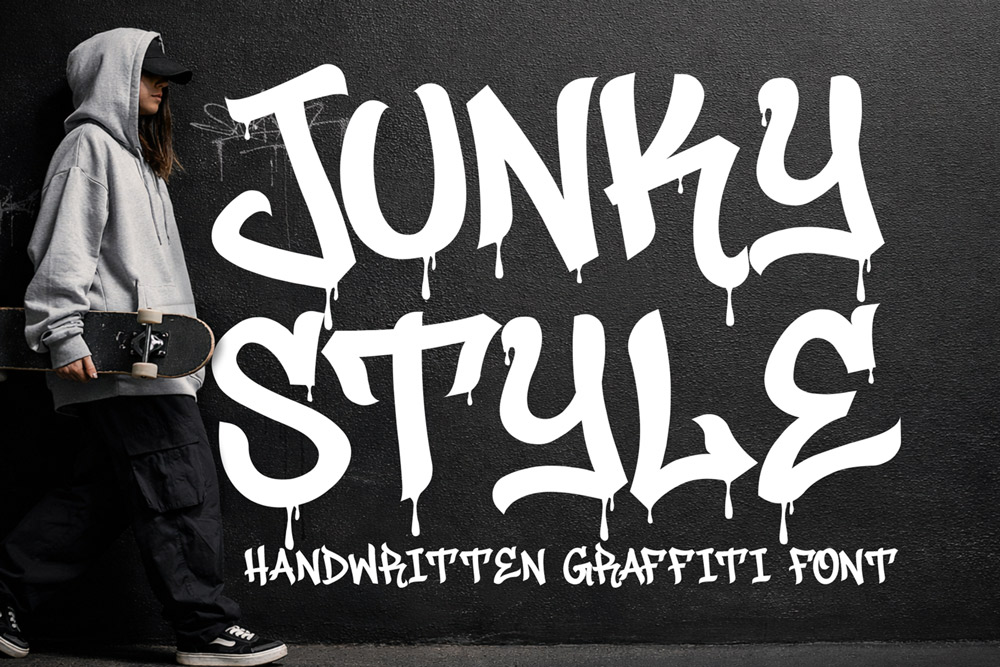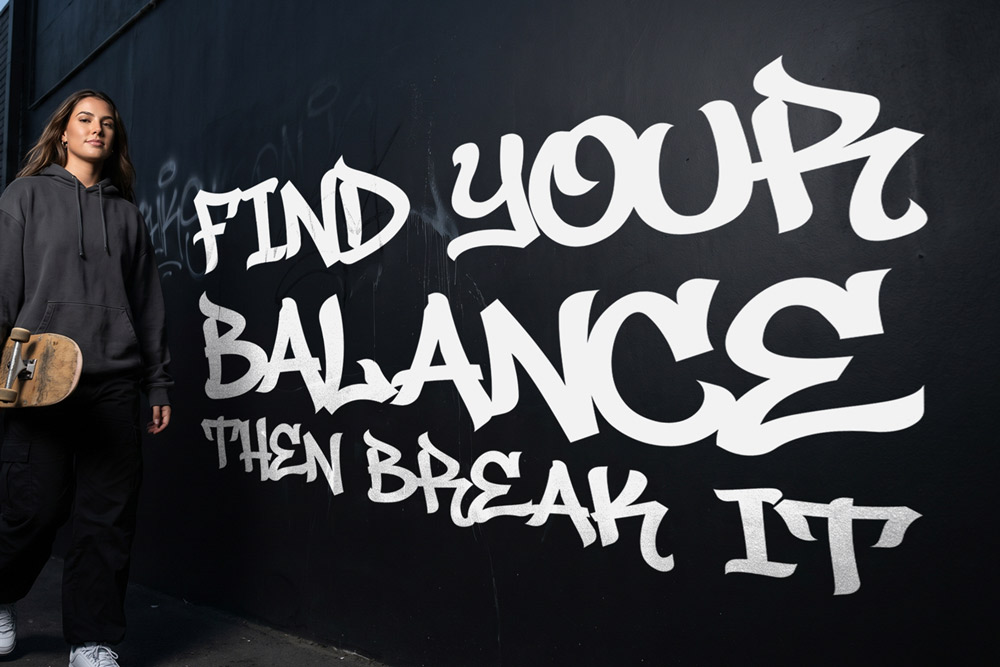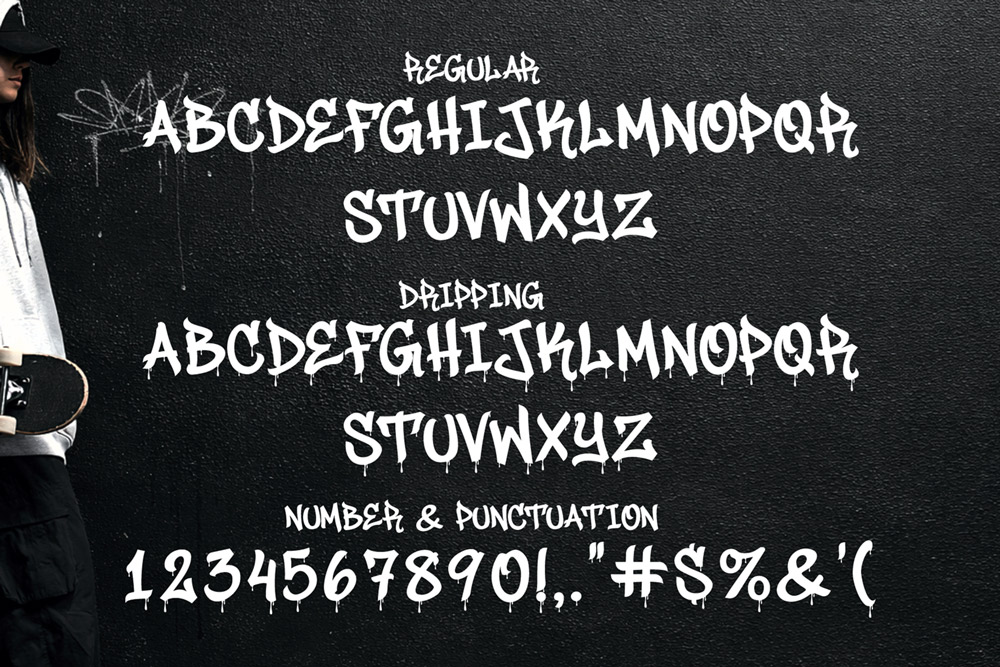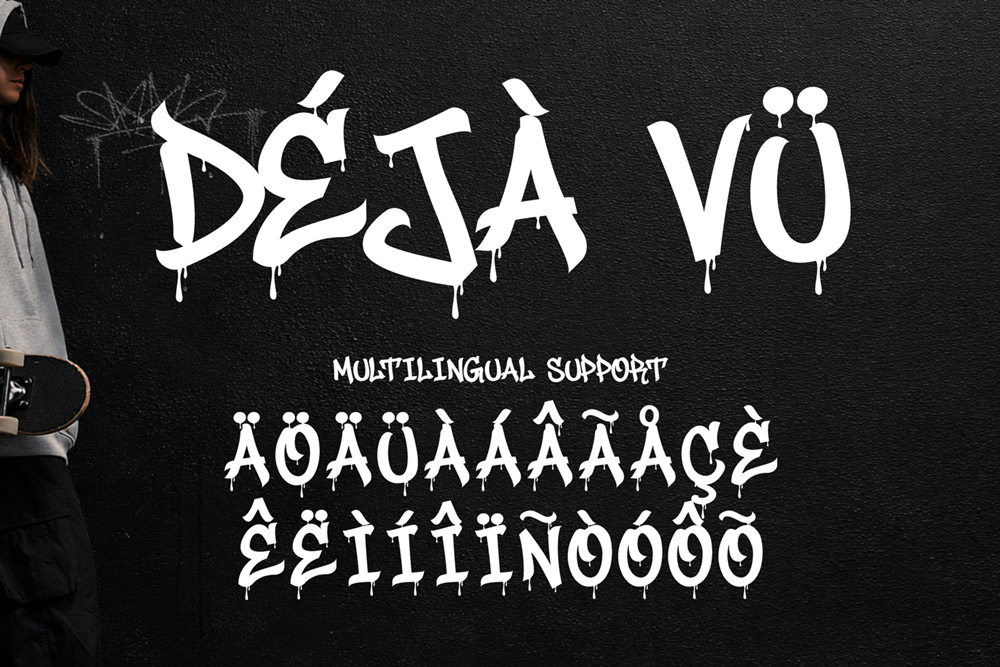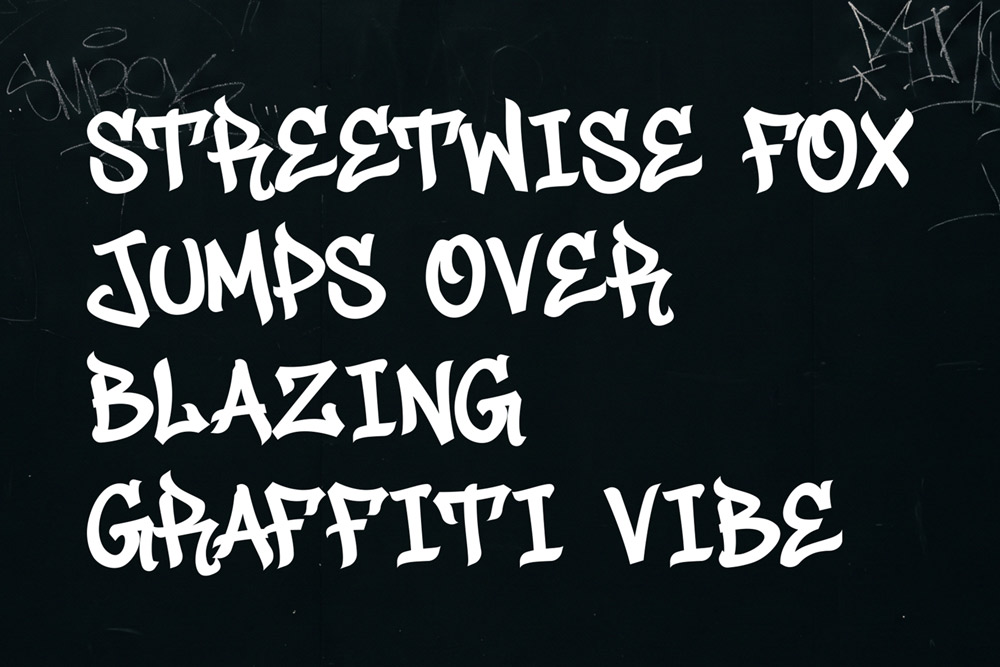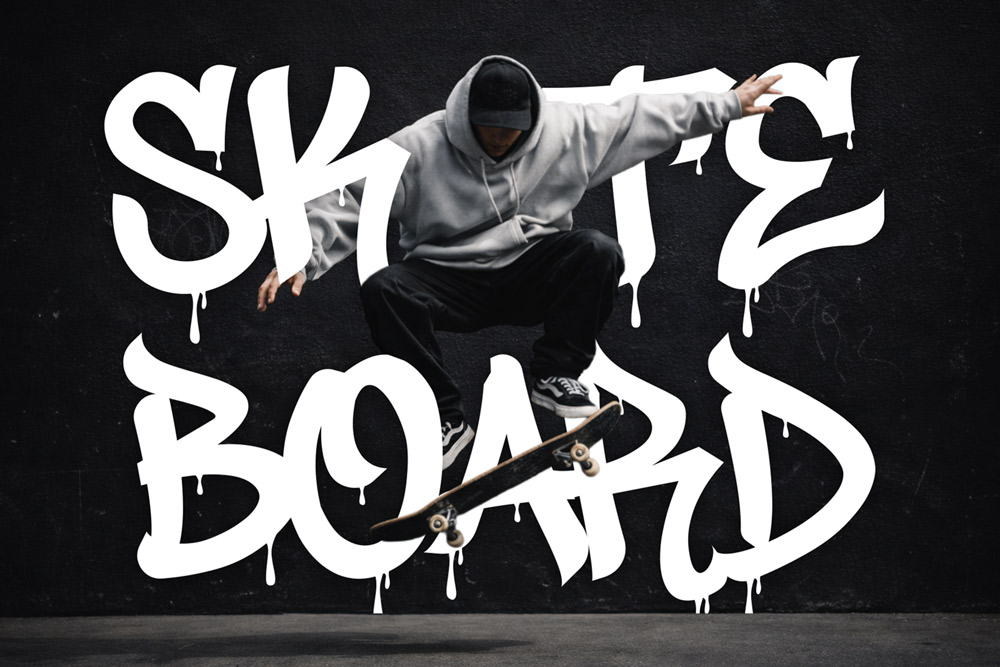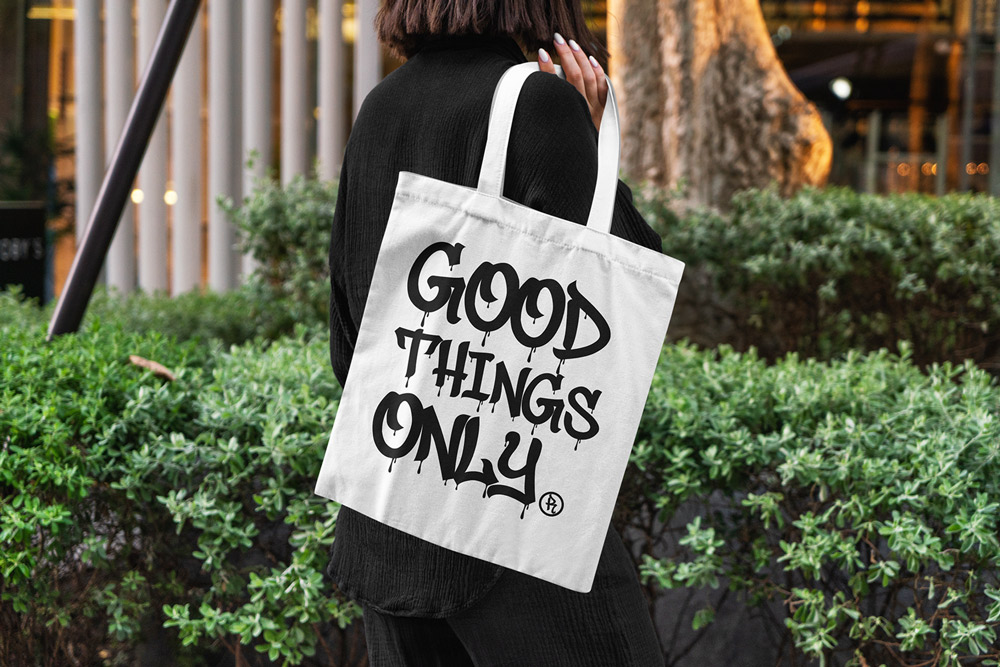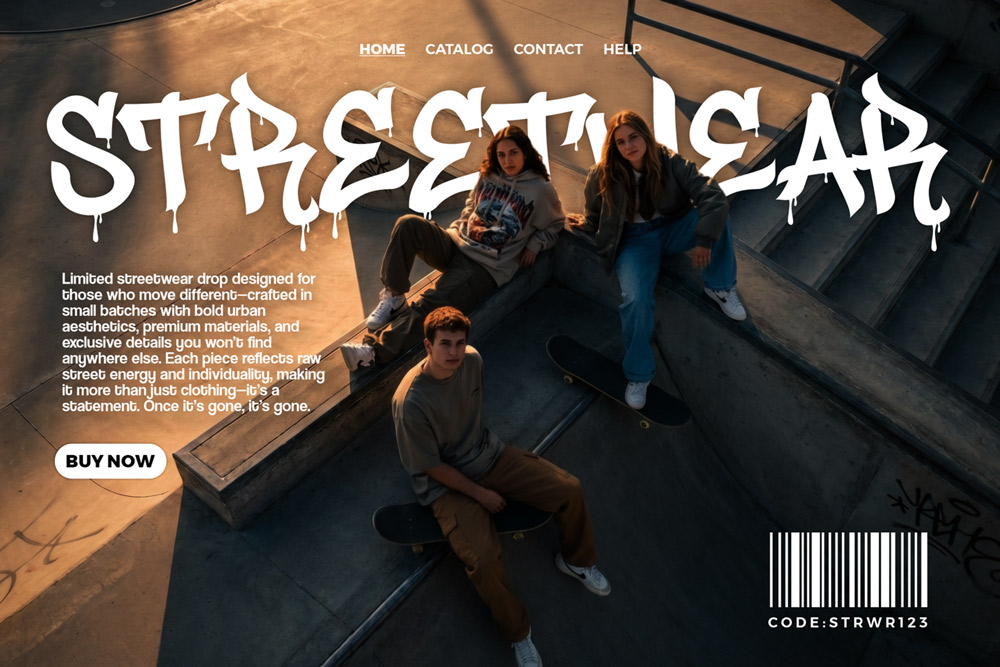
About Junky Style | Graffiti Font
Junky Style – Monoline Handwritten Graffiti with Dripping Style Font
Junky Style is a bold and expressive graffiti font that blends clean monoline strokes with raw dripping energy. Designed for creators who want a balance between smooth handwriting and urban chaos, this monoline graffiti font delivers a unique aesthetic that stands out in modern design. Whether you’re working on streetwear branding, social media visuals, or poster design, Junky Style graffiti font gives your typography a strong and authentic urban voice.
This handwritten graffiti font captures the natural flow of tagging culture while maintaining clarity and structure. The combination of monoline consistency and dripping details makes Junky Style a versatile graffiti display font that works across both clean and edgy compositions.
Smooth Flow Meets Dripping Urban Energy
Junky Style graffiti font is built around a monoline concept, where each stroke maintains consistent thickness for a clean and modern look. This foundation is enhanced with dripping stylistic alternates, transforming it into a powerful dripping graffiti font that feels alive and expressive.
The handwritten nature of this urban graffiti font adds personality and rhythm, making every word feel organic. Whether you choose the clean version or the dripping style, Junky Style allows you to control the tone of your design—from minimal to aggressive street aesthetics.
A Unique Monoline Graffiti Font for Modern Creators
Unlike traditional graffiti fonts that rely heavily on thick strokes, Junky Style introduces a fresh approach with its monoline structure. This makes it a highly readable graffiti font while still maintaining an authentic street feel. The result is a graffiti typeface that is both stylish and functional.
This handwritten graffiti font is perfect for designers who want flexibility. It works beautifully for logos, branding, and digital content while also excelling in expressive layouts. With its dripping alternates, this graffiti font can instantly shift from clean to edgy, giving you more creative control.
Complete Character Set & Typography Features
Junky Style – Monoline Handwritten Graffiti Font is designed with professional features to support a wide range of creative projects.
✔ Uppercase Characters
Clean and expressive uppercase letters designed with a consistent monoline graffiti font style.
✔ Multilingual Support
Supports multiple languages, making this graffiti font suitable for international design projects and global audiences.
✔ Numbers & Punctuation
Includes a complete set of numbers and punctuation for full design flexibility using this urban graffiti font.
- Unique monoline graffiti font design
- Clean handwritten style with urban influence
- Dripping stylistic alternates for flexibility
- High readability for display and branding
- Perfect for streetwear and modern branding
- Works across digital and print platforms
- Versatile for both clean and edgy designs
Why Designers Love Junky Style
Designers love Junky Style graffiti font because it offers the perfect balance between simplicity and expression. The monoline structure makes it easy to read and highly versatile, while the dripping alternates add a bold street character when needed.
This handwritten graffiti font is especially popular among designers who want a modern urban look without sacrificing clarity. It’s ideal for branding projects where readability is just as important as style.
Another reason designers choose this graffiti font is its flexibility. With two distinct styles—clean and dripping—Junky Style allows for creative experimentation without switching fonts. This makes it a powerful tool for building cohesive design systems using a single urban graffiti font.
Perfect For Creative Projects
Junky Style graffiti font is ideal for:
- Streetwear branding
- Logo design with handwritten style
- Social media graphics
- Graffiti posters and flyers
- Music artwork and album covers
- Merchandise and apparel
If you’re looking for a monoline graffiti font with dripping versatility, Junky Style is the perfect solution.
If you want a graffiti font that is modern, flexible, and full of character, Junky Style is your ultimate choice. Elevate your designs, express your creativity, and bring your ideas to life with a dripping graffiti font that truly stands out.